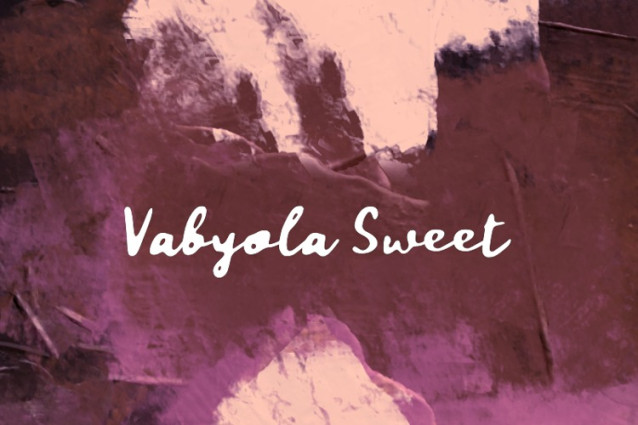
Vabyola Sweet Font
Vabyola Sweet Font is a simple and friendly handwritten font. Its natural and unique style makes it incredibly fitting to a large pool of designs. The only limit is your imagination!